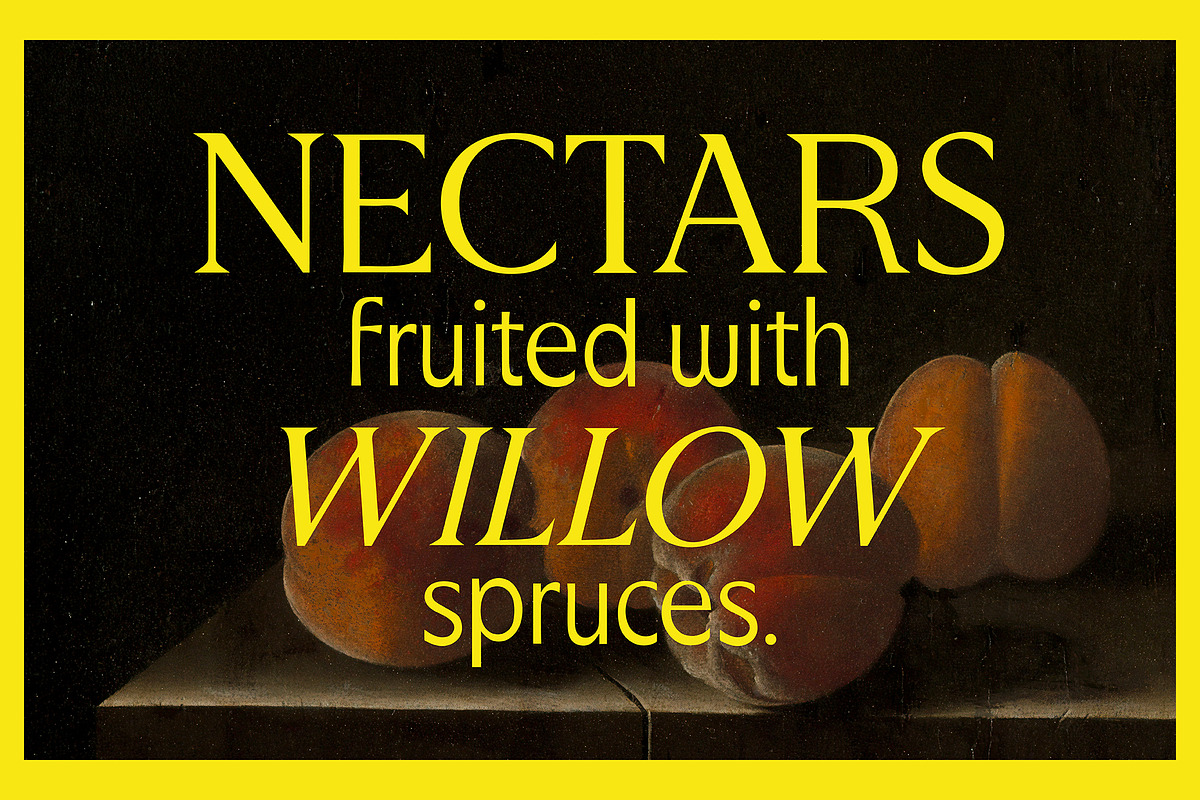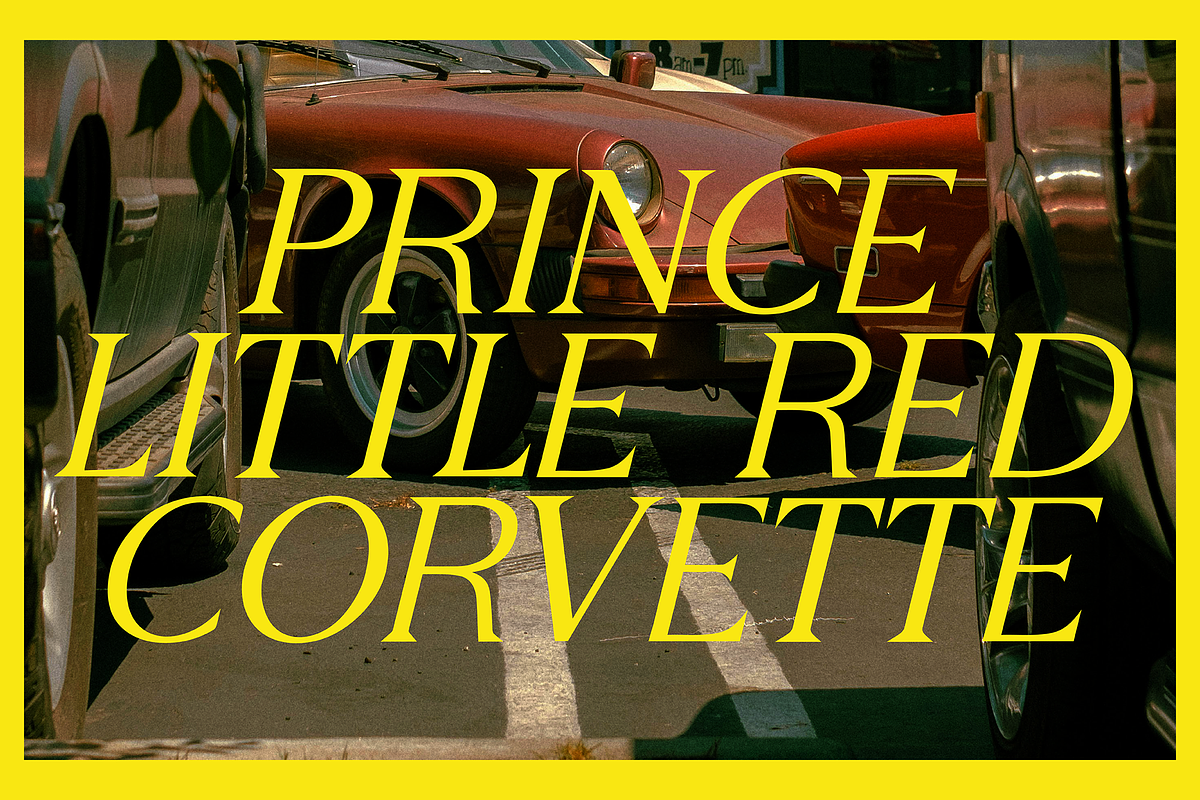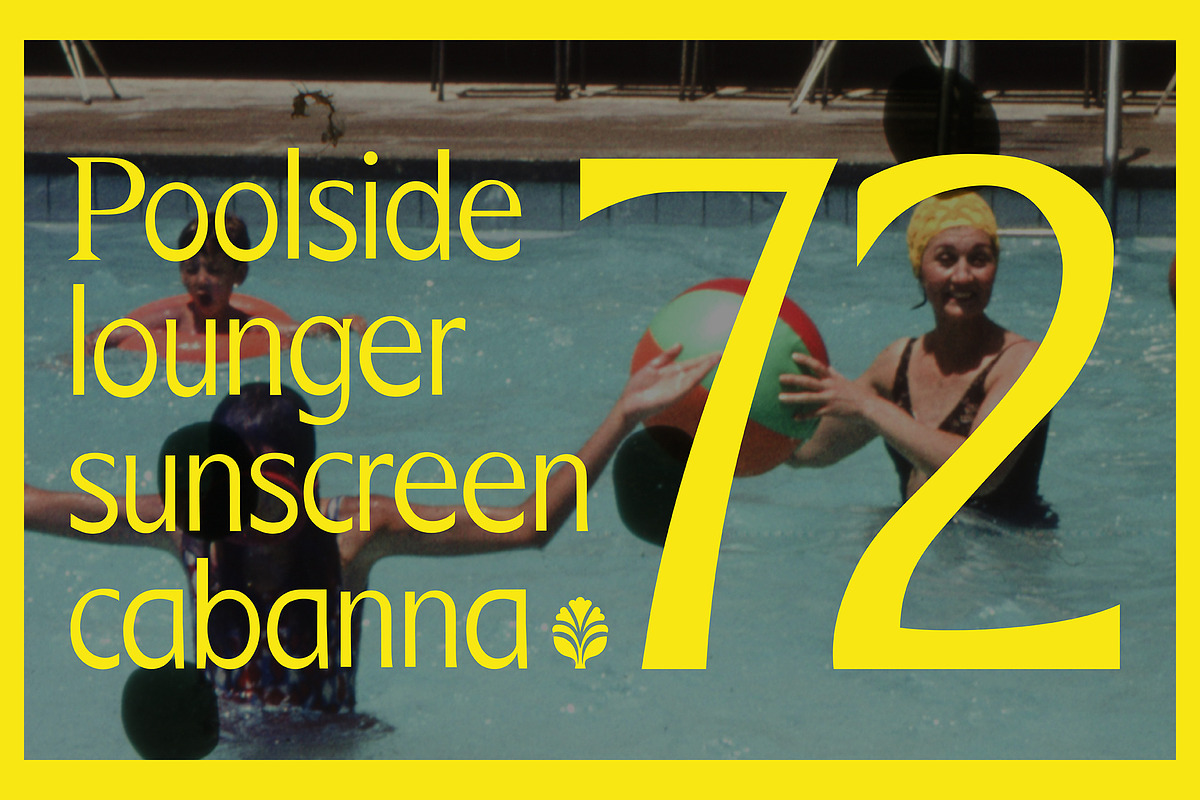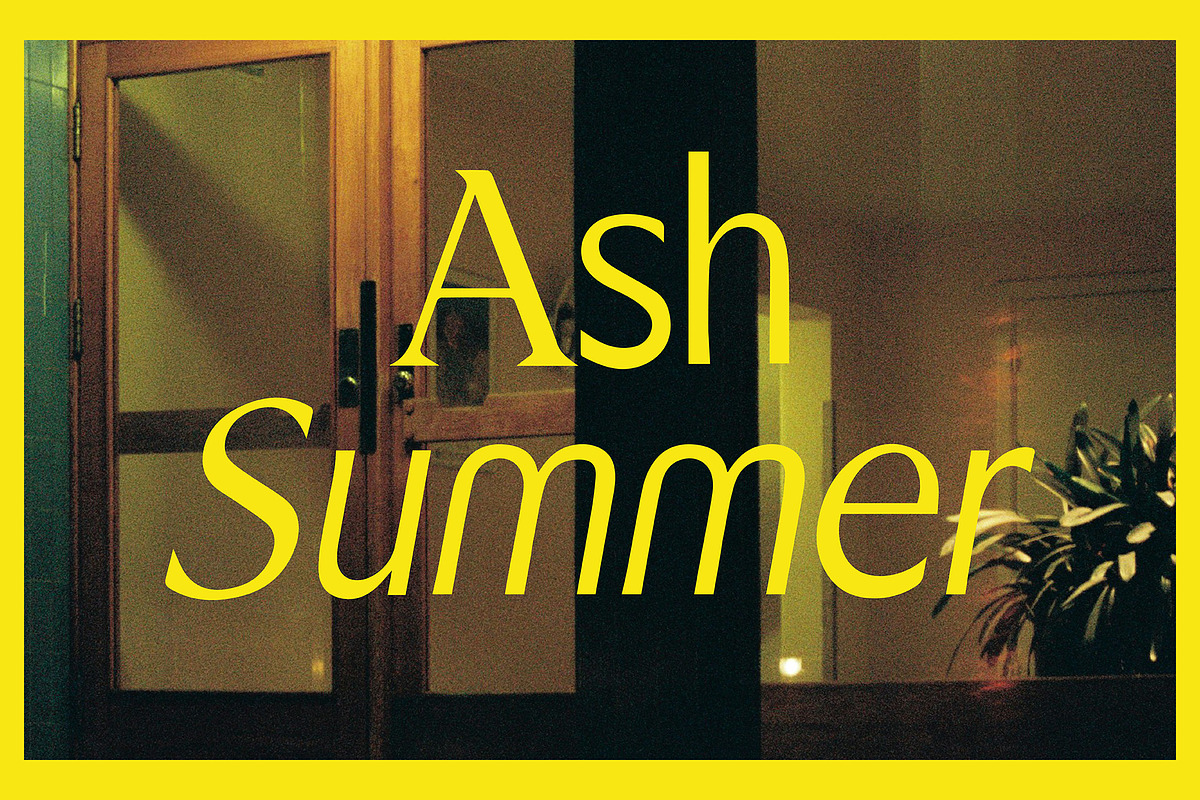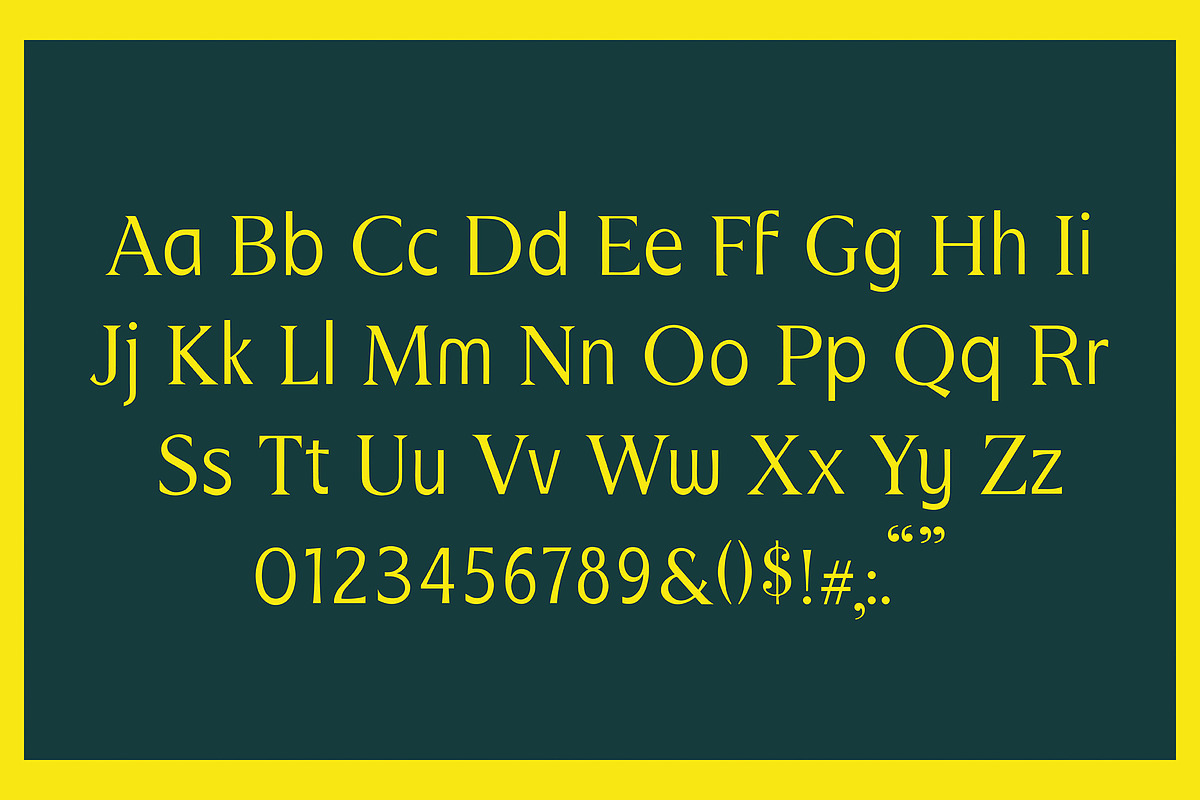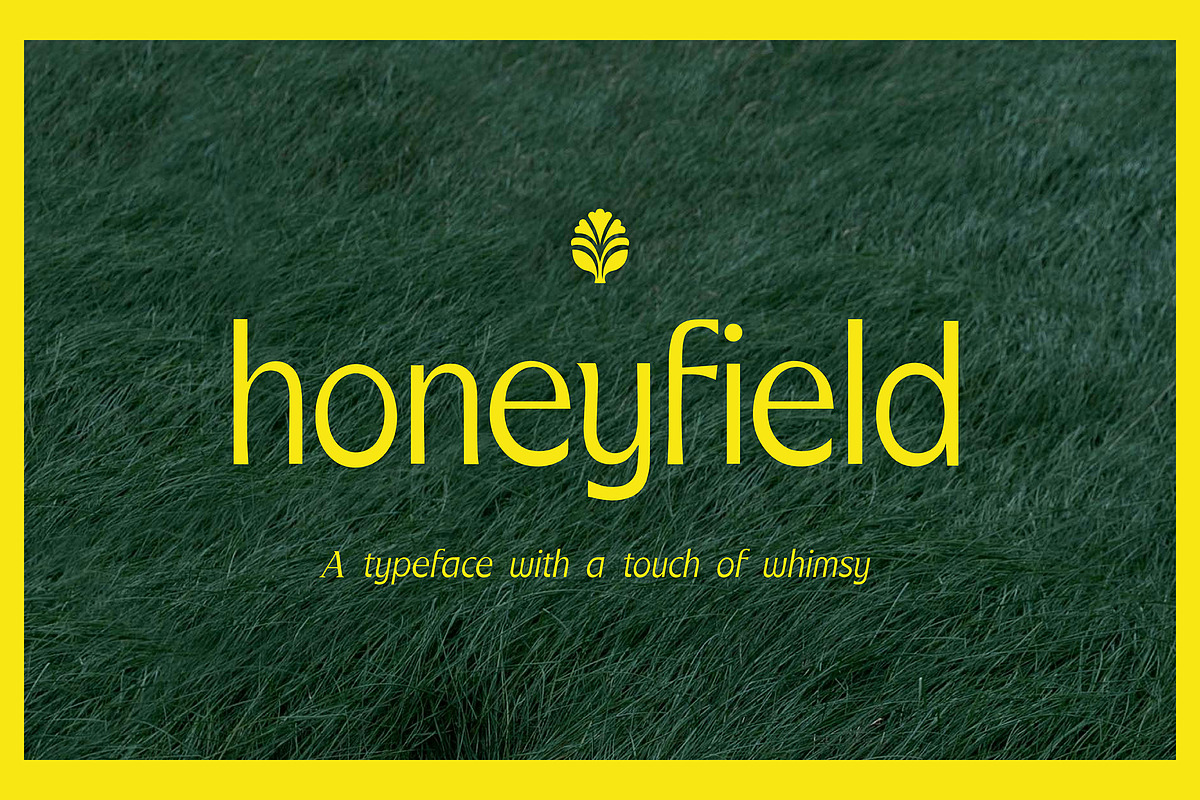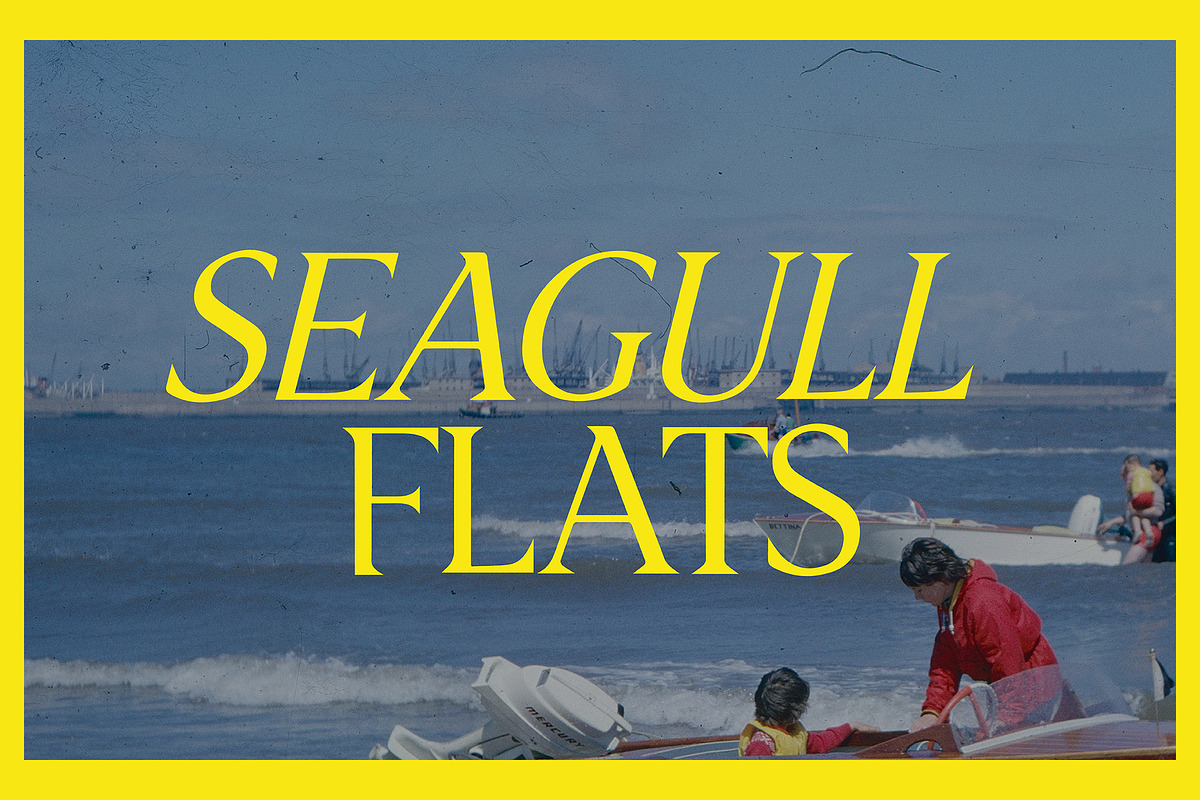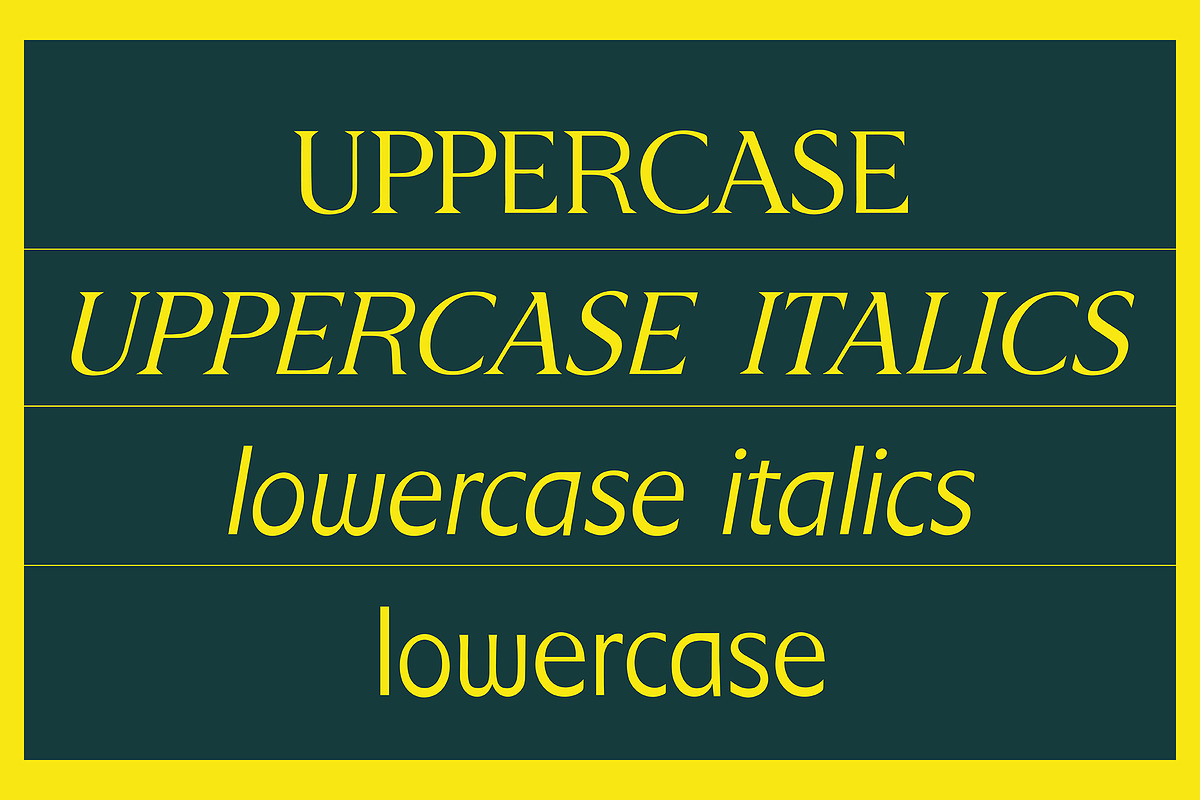
Honeyfield Serif
Honeyfield is is a lyrical serif typeface with a touch of vintage refinement and poetic charm. Featuring uppercase, lowercase, and matching italics, this font brings warmth and sophistication to everything from brand identities and packaging to invitations, books, and storytelling-led design.